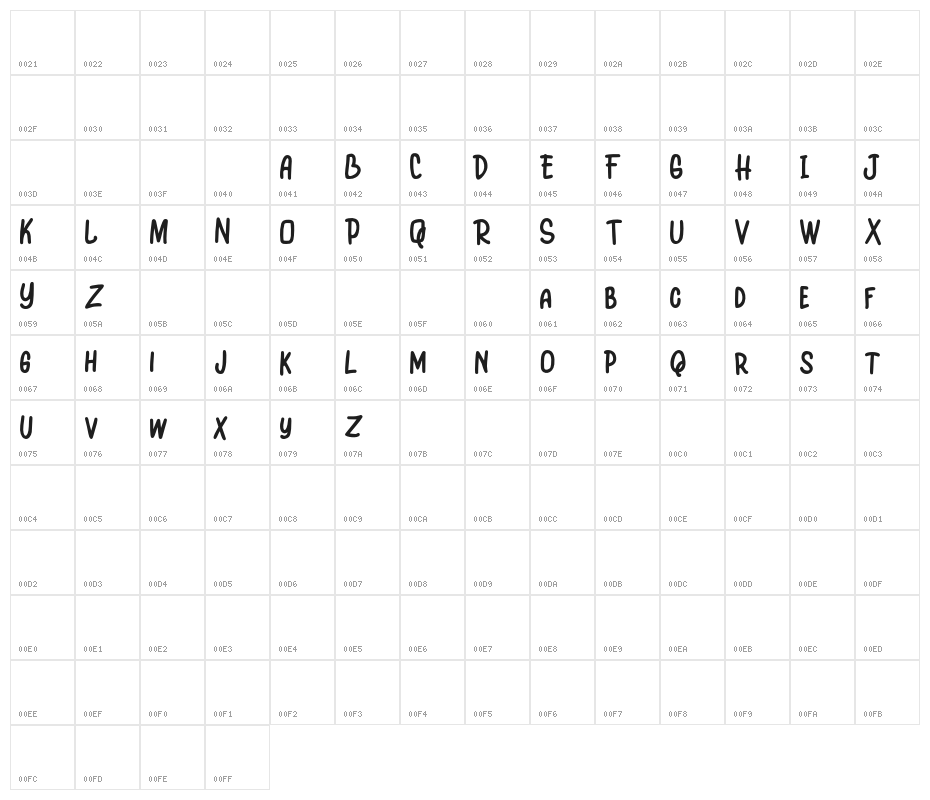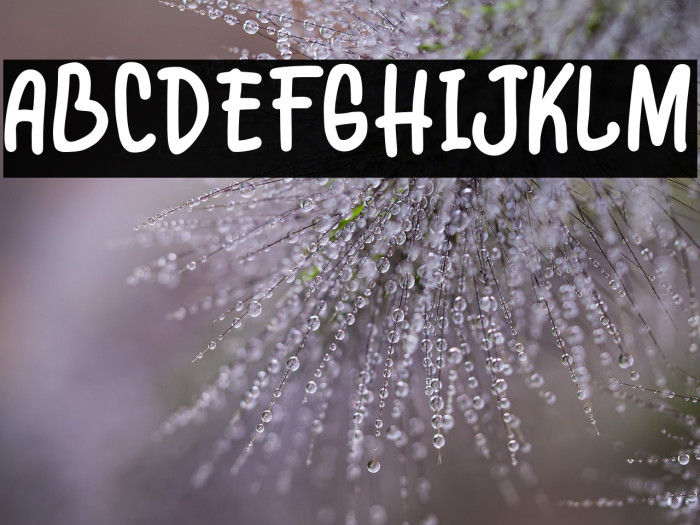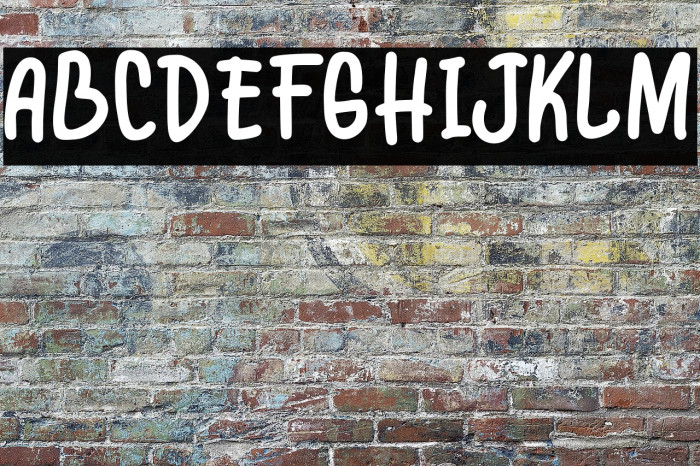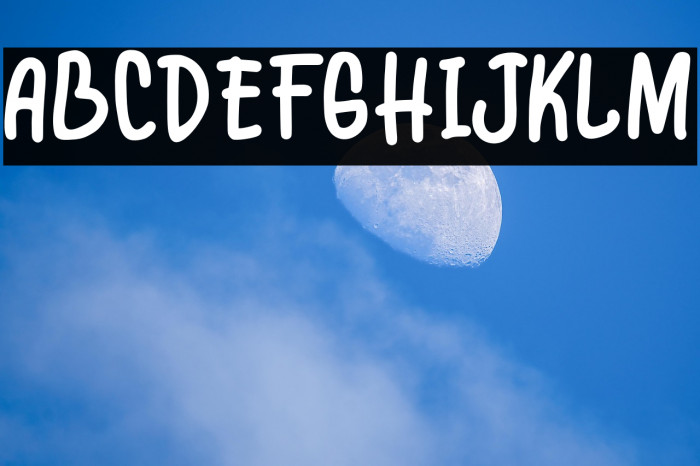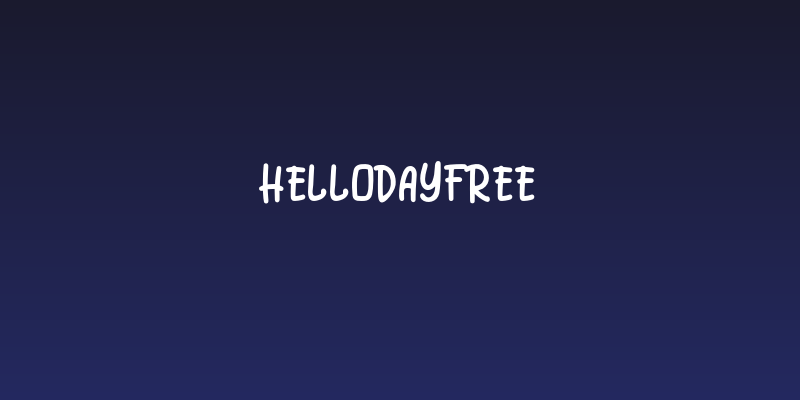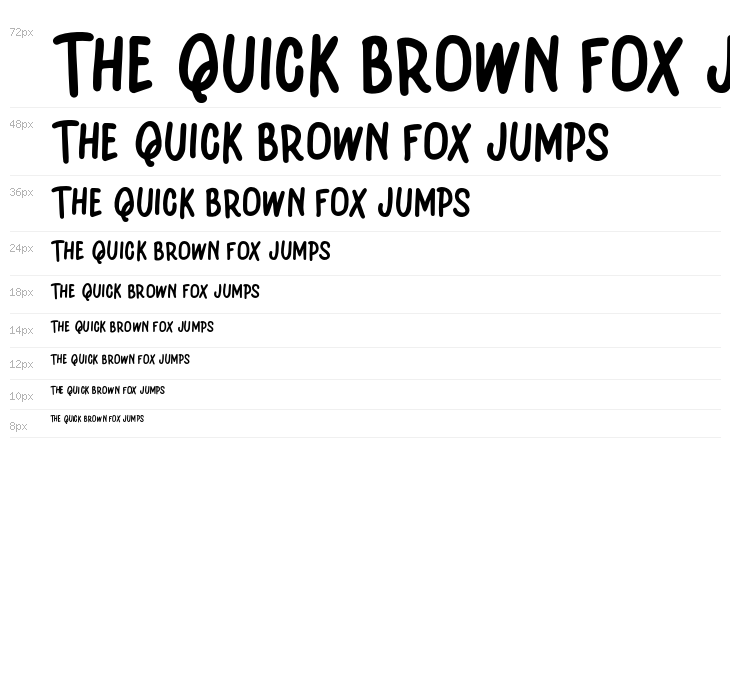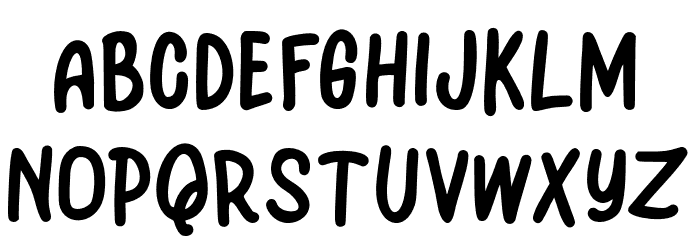
HelloDayFREE Font
HelloDayFREE Description
This font features a playful and bold handwritten style, characterized by its rounded and slightly irregular letterforms. The uppercase letters are consistent in height, with a slight slant that adds a dynamic feel. The strokes are thick and uniform, providing a strong visual impact. The lowercase letters maintain the same playful aesthetic, with rounded edges and a casual flow. The font's overall appearance is friendly and approachable, making it suitable for designs that require a personal touch. The spacing between characters is normal, ensuring readability while maintaining the font's unique style.
| Use Case | Headlines, Logos, Social media graphics |
| Proposed Projects | Ideal for greeting cards, children's books, playful branding, and social media graphics. |